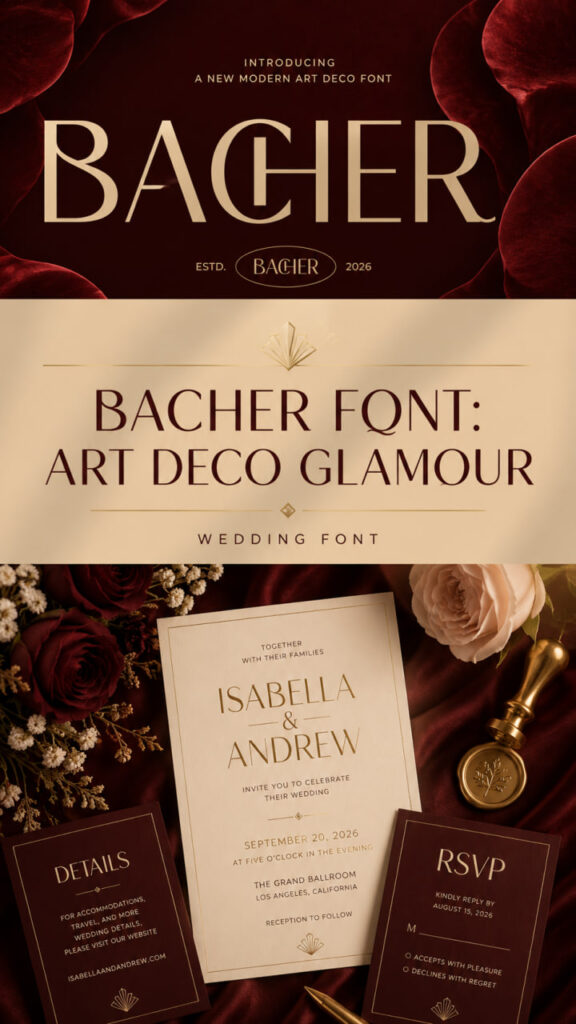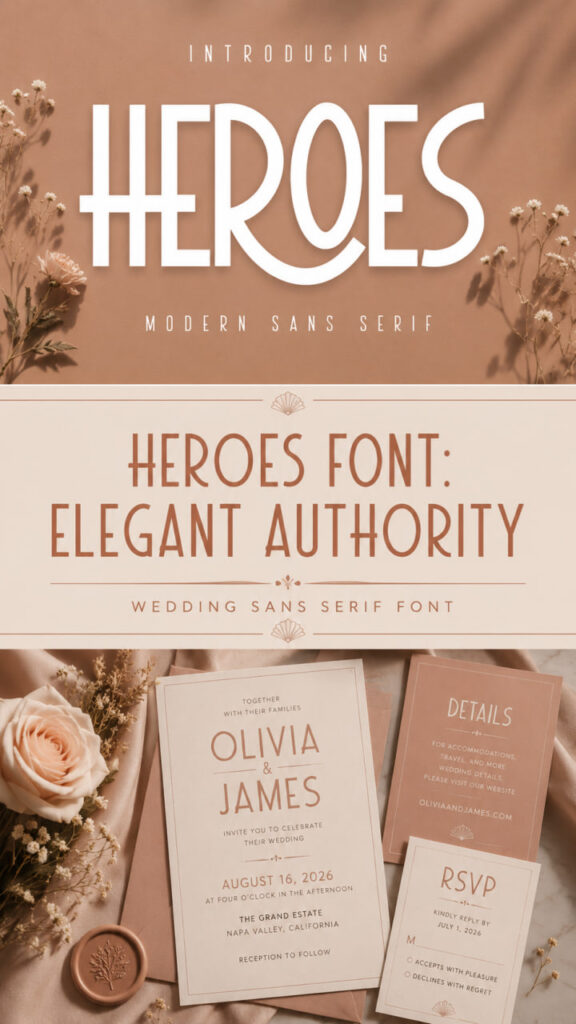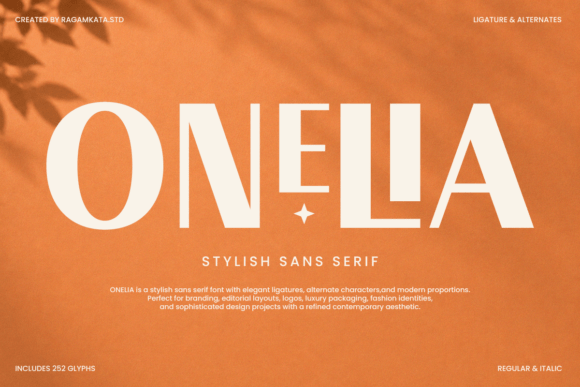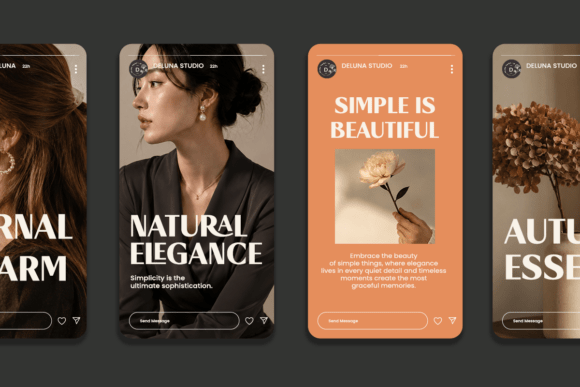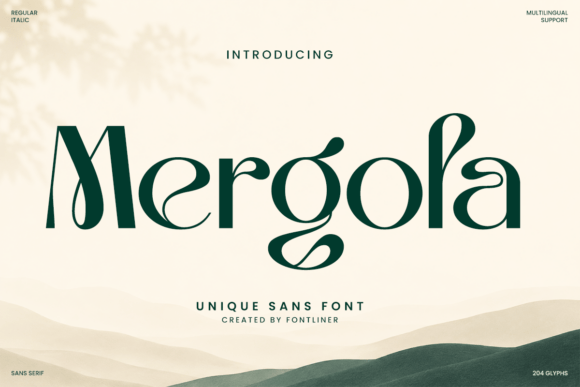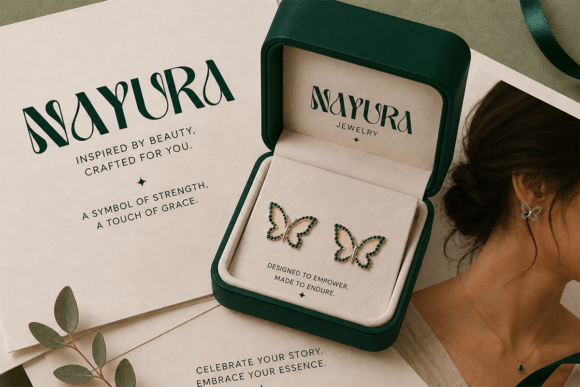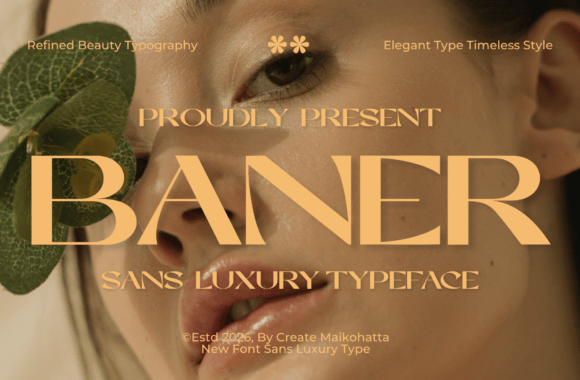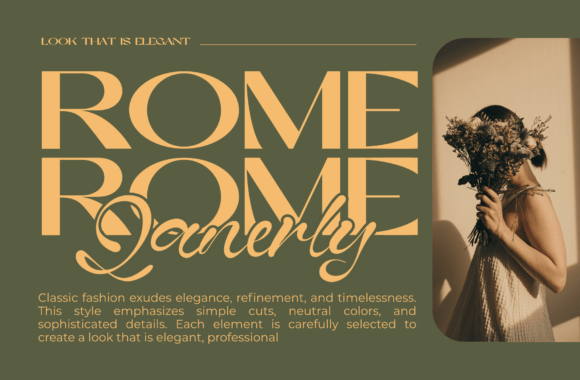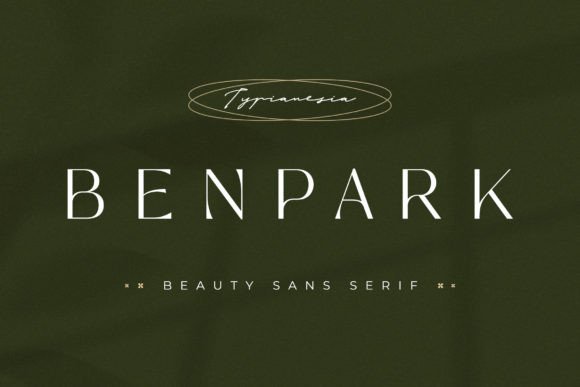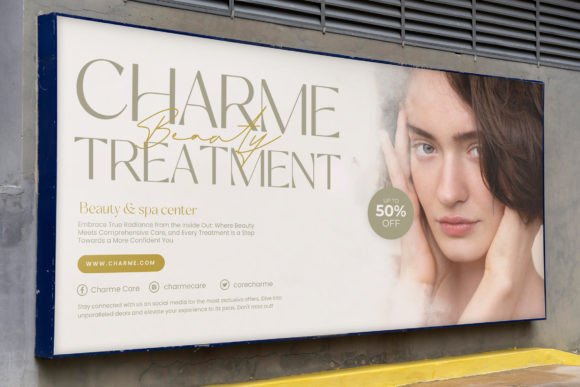
9 Beautiful Wedding Sans Serif Fonts for Elegant Stationery
Finding the 9 beautiful wedding sans serif fonts for elegant stationery is the ultimate secret to crafting romantic, modern, and highly sophisticated designs that leave an unforgettable impression on your guests. Whether you are a passionate DIY bride designing your own invitations or a professional boutique creator looking to elevate your client’s marital assets, choosing the right clean, contemporary typography will effortlessly bring a gallery-grade poise to your layout. In this expert roundup, we are showcasing stunning, handpicked typographic options engineered to make your custom save-the-dates, table cards, and envelopes look beautifully customized, balanced, and timelessly chic.
Modern Limited Font: Architectural Precision and Sophisticated Minimalism
Introduce a breathtaking sense of architectural precision and high-end minimalism with Modern Limited, an exceptionally sophisticated typeface designed to elevate your creative canvas. Characterized by its razor-sharp lines and flawlessly balanced proportions, this pristine design stands out as an incredibly versatile Wedding Sans Serif Font that radiates modern luxury. It beautifully channels the upscale, uncluttered aesthetics of editorial styling and high-fashion magazines, making it an absolute masterpiece for crafting professional brand logos, majestic corporate identities, and premium lifestyle layouts.
This clean-cut marvel performs with supreme elegance across all mediums, making it a spectacular Wedding Font choice for styling chic luxury stationery, contemporary invitation suites, and minimalist place cards. Meticulously structured to ensure crystal-clear readability, its sleek geometric forms bring a quiet authority to prominent website headers, high-end beauty packaging, and minimalist social media templates alike. Integrate Modern Limited into your visual toolkit today to drape your everyday concepts in a blanket of refined, gallery-grade sophistication that commands deep appreciation.
Bacher Font: Art Deco Glamour and Modern Luxury
Immerse your creative projects in a spellbinding fusion of historical glamour and contemporary minimalism with Bacher, a sophisticated modern Art Deco masterpiece designed to command undivided attention. Characterized by its refined geometric forms, graceful curves, and high-contrast letterforms, this exquisite design stands out as an exceptionally premium Wedding Sans Serif Font that radiates pure luxury. It beautifully channels the upscale, architectural aesthetics of the roaring twenties and modern high-fashion editorials, making it an absolute triumph for crafting professional brand logos, majestic corporate identities, and premium lifestyle layouts.
This clean-cut marvel performs with supreme elegance across all mediums, bringing a dramatic sense of prestige to your layouts. Meticulously structured to ensure crystal-clear readability, its sleek geometric forms bring a quiet authority to prominent website headers, high-end beauty packaging, hotel branding, and minimalist social media templates alike. Integrate Bacher into your visual toolkit today to ensure your next artistic composition leaves a whisper of timeless high-society luxury in the minds of everyone who sees it.
Heroes Font: Bold Modernity and Elegant Authority
Break away from conventional design boundaries and embrace the daring, polished spirit of Heroes, a contemporary masterpiece engineered to inject a fearless sense of modern sophistication into your creative layouts. Characterized by its clean geometric lines and confidently structured proportions, this versatile design emerges as a stellar addition to your premium collection of Wedding Sans Serif Fonts. It strikes a masterful balance between subtle artistic flair and commanding structural weight, making it an absolute powerhouse for crafting professional brand logos, majestic corporate identities, and high-impact social media layouts.
This classy marvel performs with supreme elegance across both digital screens and tactile print, standing out as an exceptionally chic Wedding Font choice for styling contemporary stationery, minimalist invitation suites, and clean place cards. Meticulously balanced to ensure perfect readability, its sleek letterforms bring an undeniable authority to elegant business headers, boutique packaging, and editorial layouts alike. Integrate Heroes into your toolkit today to ensure your message commands undivided attention with a crisp, confident aesthetic that leaves a lasting impression of sophisticated modern strength.
Onelia Font: Elegant Geometry and Contemporary Luxury
Step into a breathtaking realm of high-fashion aesthetics and contemporary grace with Onelia, a stylish modern design crafted to bring a premium, high-end identity to your creative canvas. Characterized by its distinctive ligatures, refined alternates, and beautifully balanced letterforms, this exquisite typeface stands out as a highly versatile Wedding Sans Serif Font that radiates modern luxury. It beautifully blends clean, structured architecture with artistic flourishes, making it an absolute masterpiece for styling professional brand logos, magazine layouts, and high-end beauty packaging.
Engineered with absolute design precision, this elegant asset performs with supreme poise across both digital screens and physical prints, emerging as a stunning Wedding Font choice for crafting luxury stationery, elegant invitation suites, and clean place cards. Meticulously balanced to ensure perfect readability, its sleek geometric forms bring a quiet authority to prominent website headers, boutique branding, and corporate communications alike. Integrate Onelia into your visual toolkit today to ensure your creative work projects a flawlessly chic, high-end signature that captivates modern audiences.
Mergola Font: Artistic Curves and Refined Minimalism
Awaken your visual layouts with a striking fusion of high-fashion structure and artistic softness by introducing Mergola, an exceptionally unique and elegant typeface designed to command immediate attention. Characterized by its distinctive letterforms, refined contrast, and graceful alternates, this exquisite design stands out as a highly premium Wedding Sans Serif Font that radiates pure, modern luxury. It beautifully blends clean, structured minimalism with unexpected, sophisticated curves, making it an absolute triumph for styling professional brand logos, magazine layouts, and high-end beauty packaging.